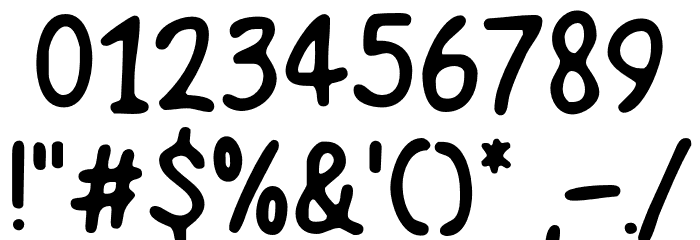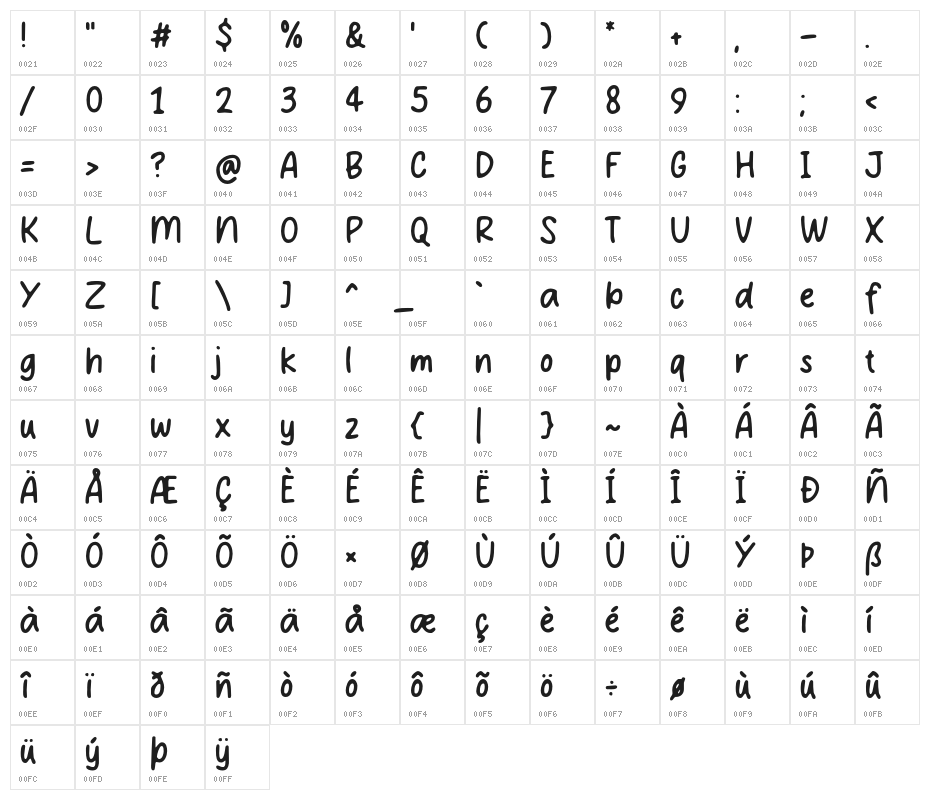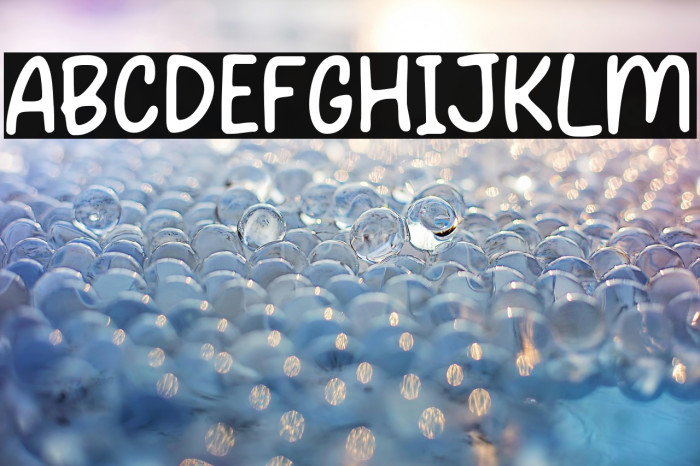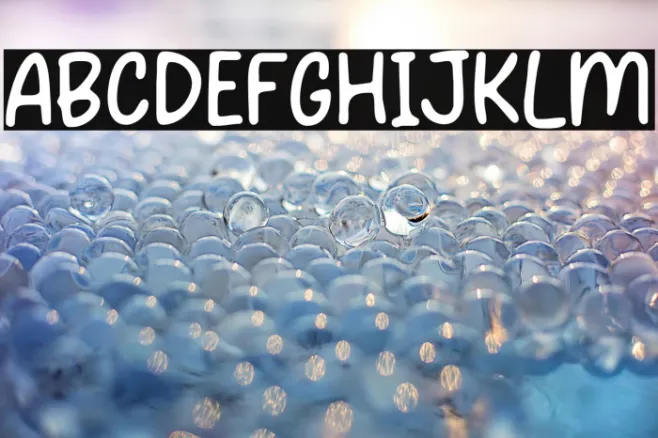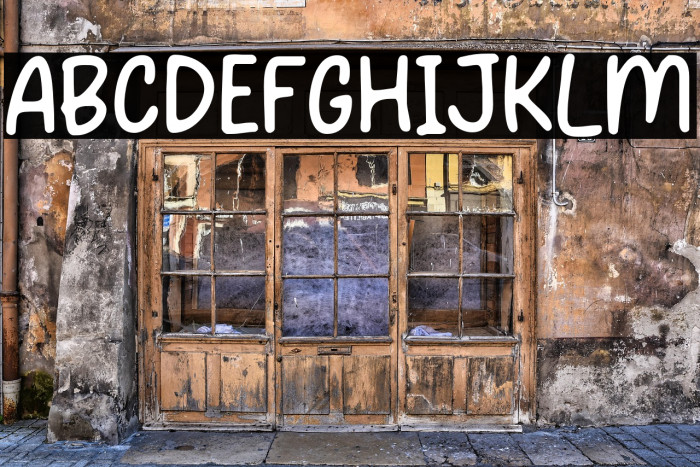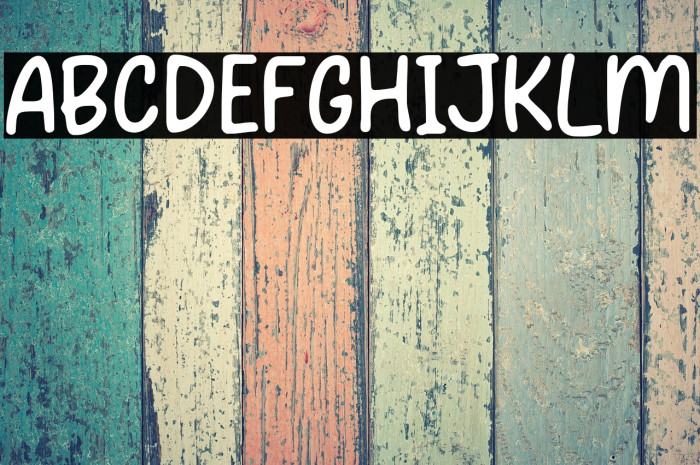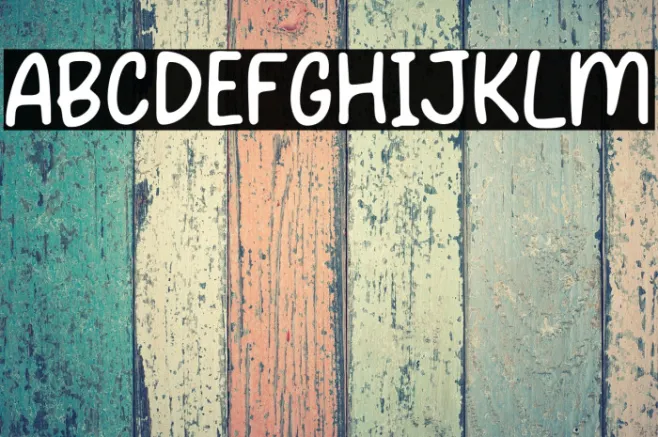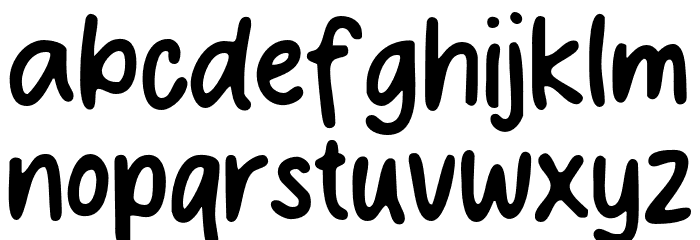
Blinders Rock Font
Blinders Rock Description
This font features a playful and informal handwritten style, characterized by its rounded and slightly irregular letterforms. The strokes are consistent in width, giving it a uniform appearance while maintaining a casual and friendly vibe. The uppercase and lowercase letters are well-balanced, with a slight slant that adds to the dynamic feel. The numerals and special characters are designed to match the overall aesthetic, making it versatile for various uses. Its approachable and lively nature makes it suitable for projects that require a personal touch.
| Proposed Projects | Ideal for greeting cards, children's books, casual branding, and social media graphics. |